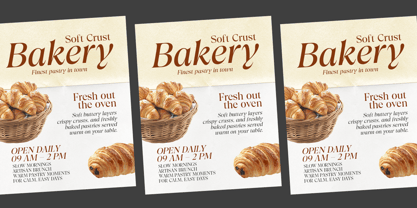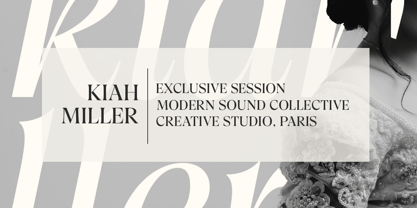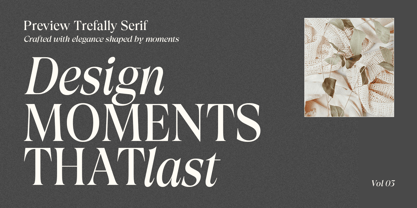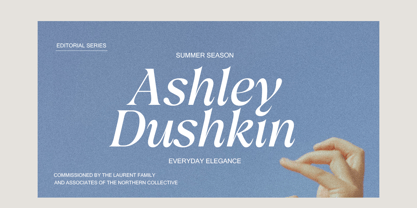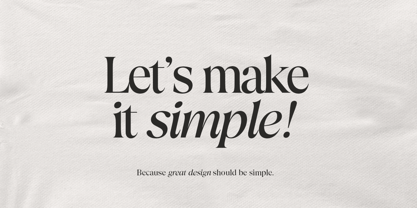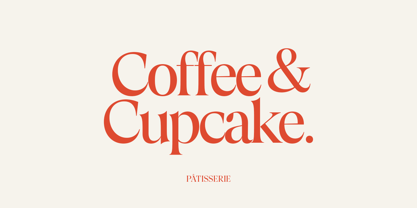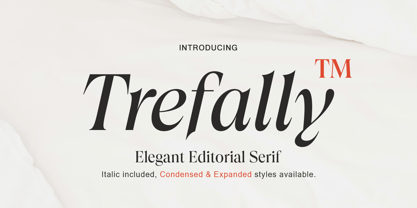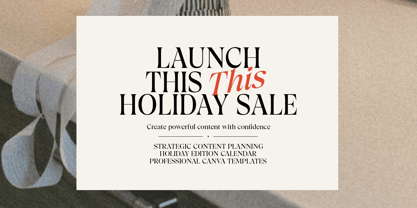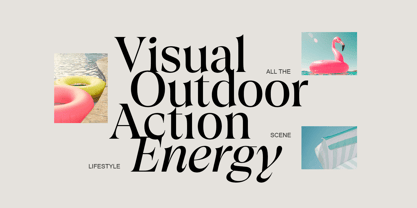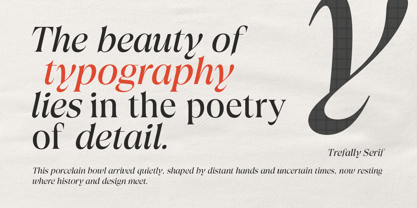
Trefally Serif
La familia tipográfica Trefally Serif fue diseñada por Muammar Kadafi y publicada por Attract Studio. Trefally Serif contiene 6 estilos y opciones de paquete familiar. Más información sobre esta familia
Trefally Serif is a modern editorial serif typeface crafted for designers who love elegance, contrast, and timeless sophistication. With its refined curves and strong character, Trefally brings a premium look to any design project. Perfect for branding, logos, fashion editorials, wedding invitations, magazines, lifestyle layouts, and social media designs, Trefally adds a luxurious and professional touch to your typography. Features: • Regular, Italic, Condensed & Expanded styles • Uppercase & Lowercase • Numerals & Punctuation • Multilingual Support • Works on Mac & Windows